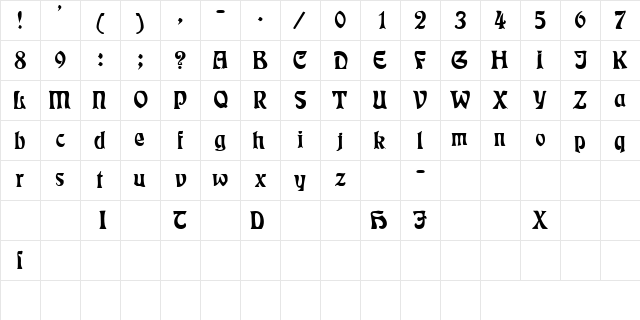
ParleySSK Regular
Design Context for ParleySSK Typeface
ParleySSK is a composed and adaptable typeface that performs quietly and consistently across a wide range of design contexts.